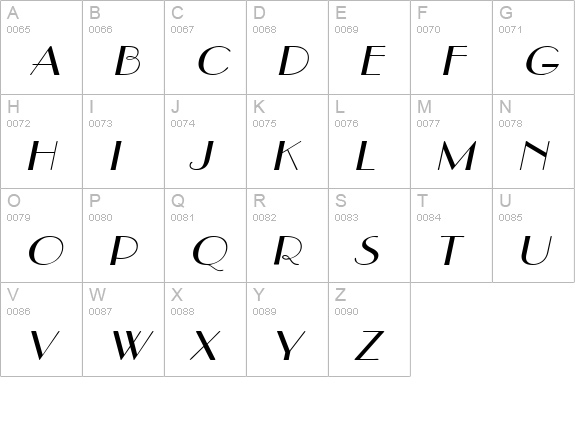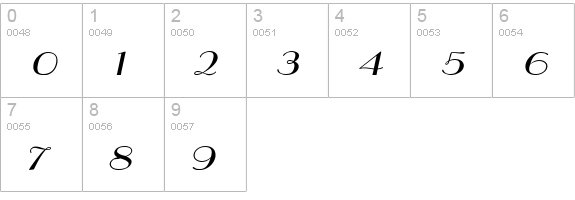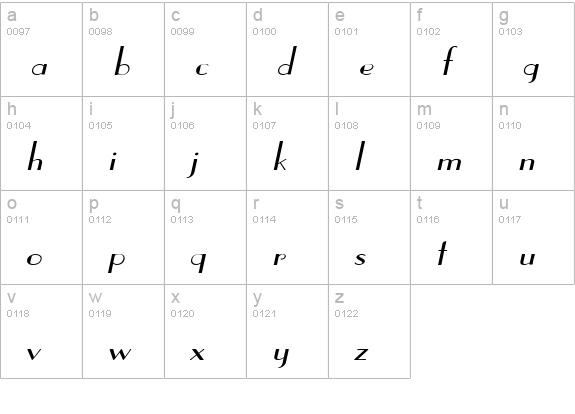
Paris Wide Italic Font Details
Paris Wide Italic is a distinctive, extended-width, italic variant in the Paris typeface family \xE2\x80\x94 well suited to design and typography projects.
Paris Wide Italic is a captivating and modern font that exudes sophistication and elegance. Its sleek and slender letterforms make it perfect for adding a touch of refinement to any design project. With its unique and stylish italics, Paris Wide Italic effortlessly combines classic charm with contemporary flair. This font is a true gem for designers, as it offers versatility and versatility in abundance. Whether you are creating a logo, branding materials, invitations, or digital artwork, Paris Wide Italic will elevate your designs to new heights. Its clean and legible characters captivate readers and ensure that your message is conveyed with clarity and finesse. What makes Paris Wide Italic even more appealing is that it is available for free download at FontsMarket.com. This means that you can enjoy all the benefits of this exceptional font without spending a dime. With just a few clicks, you can enhance your design projects with the allure and sophistication that Paris Wide Italic brings. The free availability of Paris Wide Italic at FontsMarket.com allows designers of all levels to access this remarkable font and unleash their creativity without any limitations. Whether you are a professional designer or an aspiring artist, this font will effortlessly elevate your work and make it stand out from the crowd. So, don't miss out on the opportunity to enhance your designs with the charm and elegance of Paris Wide Italic. Download it for free at FontsMarket.com and let your creativity soar to new heights.